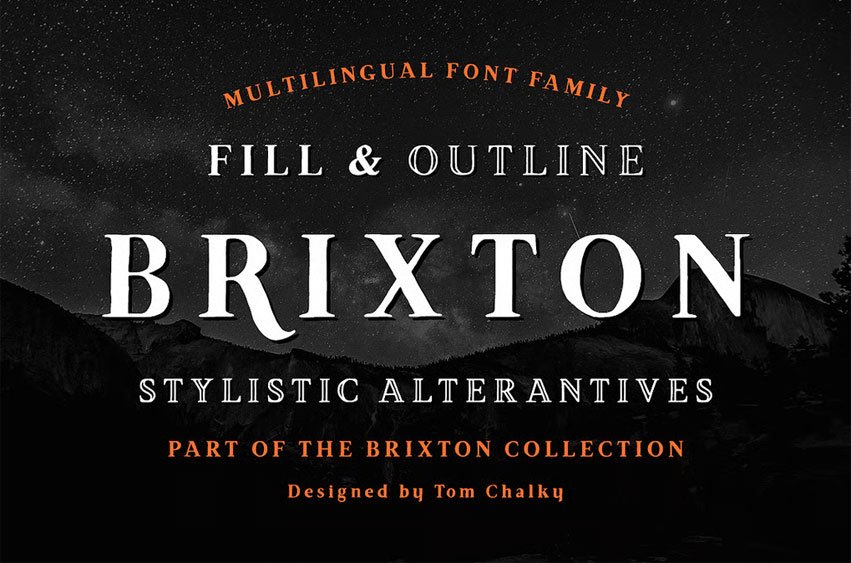
Brixton (Fill and Outline) Font is a handcrafted font family with a unique and timeless personality that is available in 3 weights; light, regular and bold (and outline for all three!). Brixton is a great display font that thrives when used correctly.
Particularly within posters, vintage logo design, label design, packaging, clothing etc.
- Stylistic Alternatives for each font
- Multilingual Glyph Set